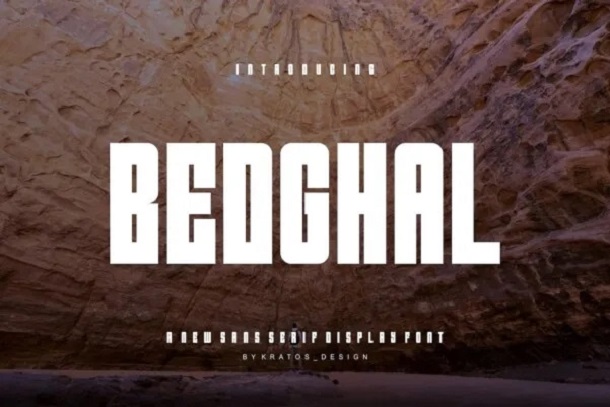
Bedghal Font
Bedghal Font, Modern Font and Bedghal Font Regular Font are stunning real-looking display fonts. Perfect for use in branding projects such as logo design, template Design or Product design, Bedghal font is also exceptional in many other settings.
Bedghal Display Font